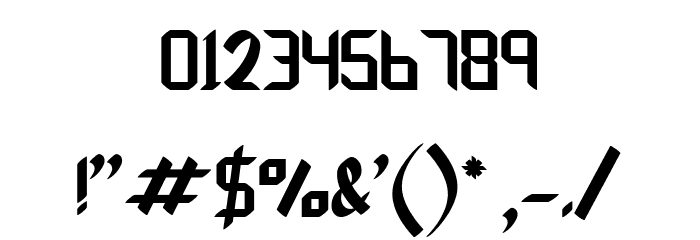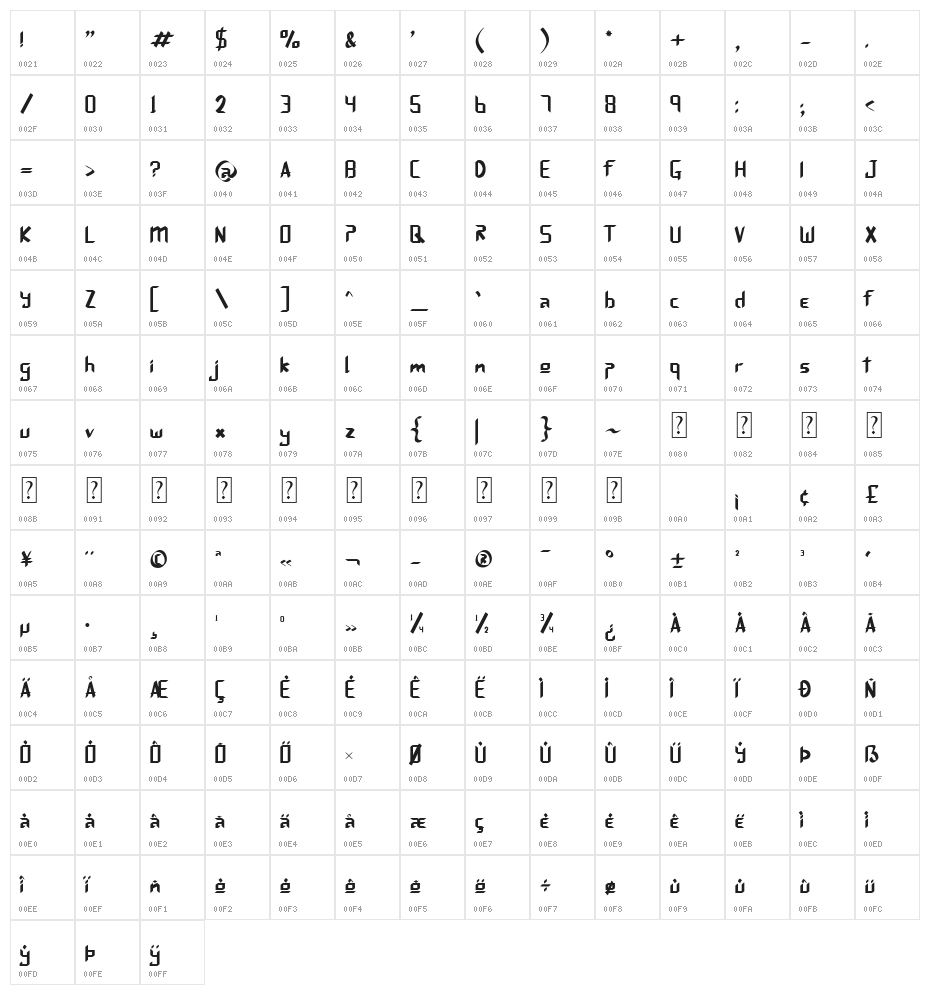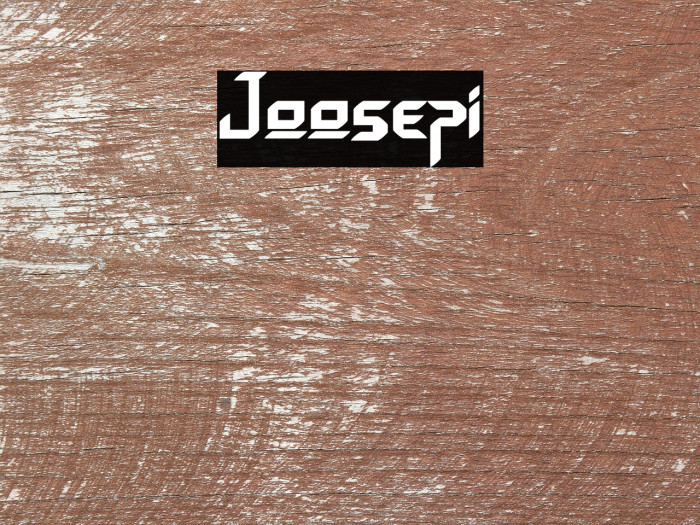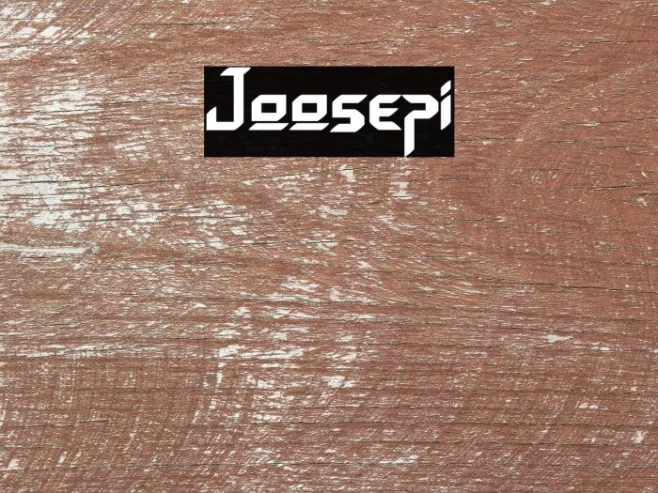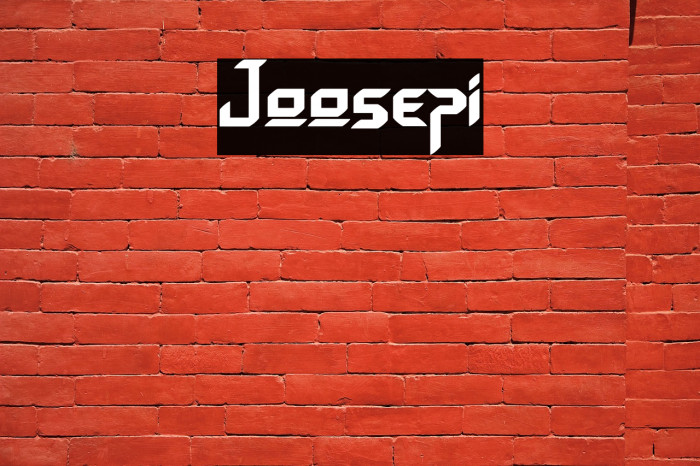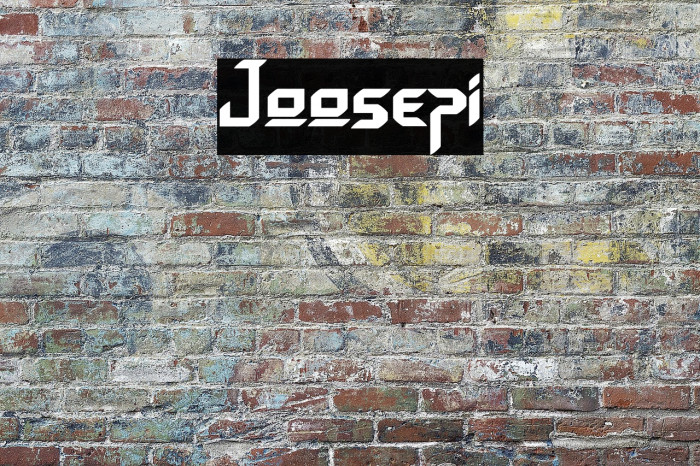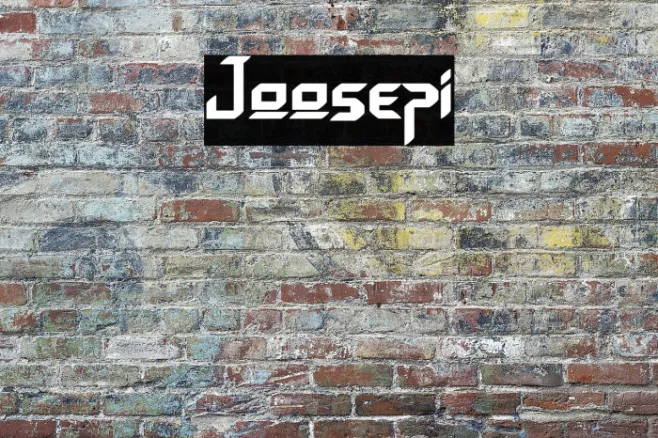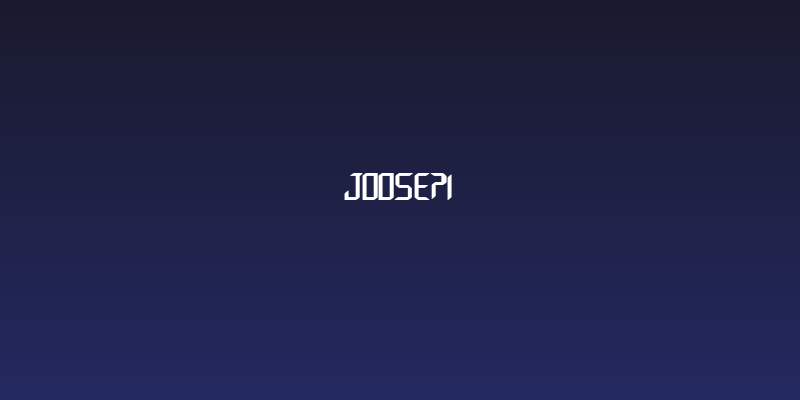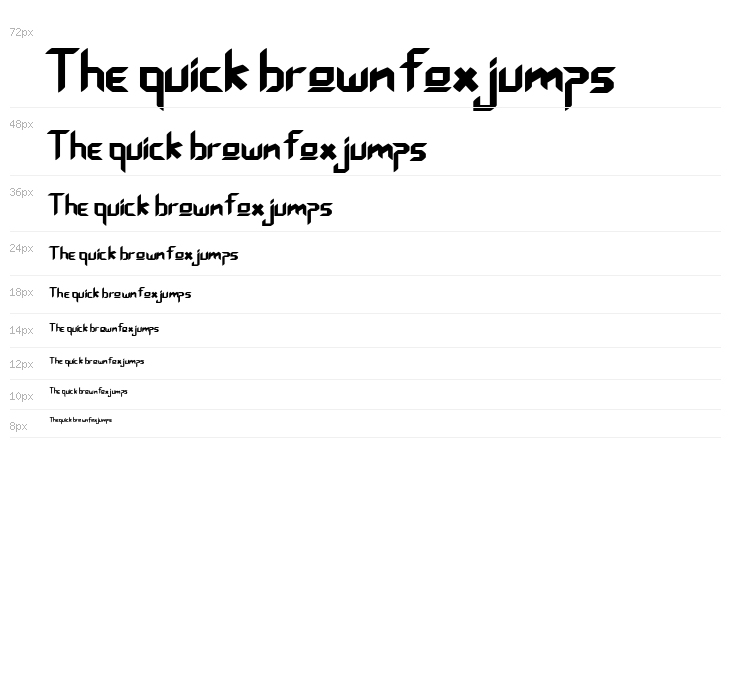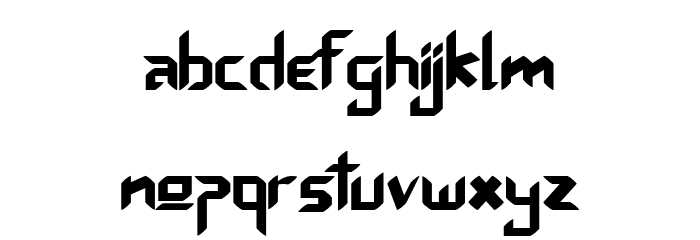
Joosepi Font
Joosepi Description
This font features a bold and angular design, characterized by sharp edges and geometric shapes. The uppercase letters are particularly striking, with a futuristic and edgy appearance that commands attention. The lowercase letters maintain the angular theme, offering a cohesive look across different text cases. Numbers and special characters are designed with the same boldness and angularity, ensuring consistency throughout. The font's unique style makes it ideal for projects that require a modern and dynamic aesthetic, such as tech-related branding or innovative product designs.
Proposed ProjectsIdeal for tech branding, futuristic designs, and innovative product packaging.